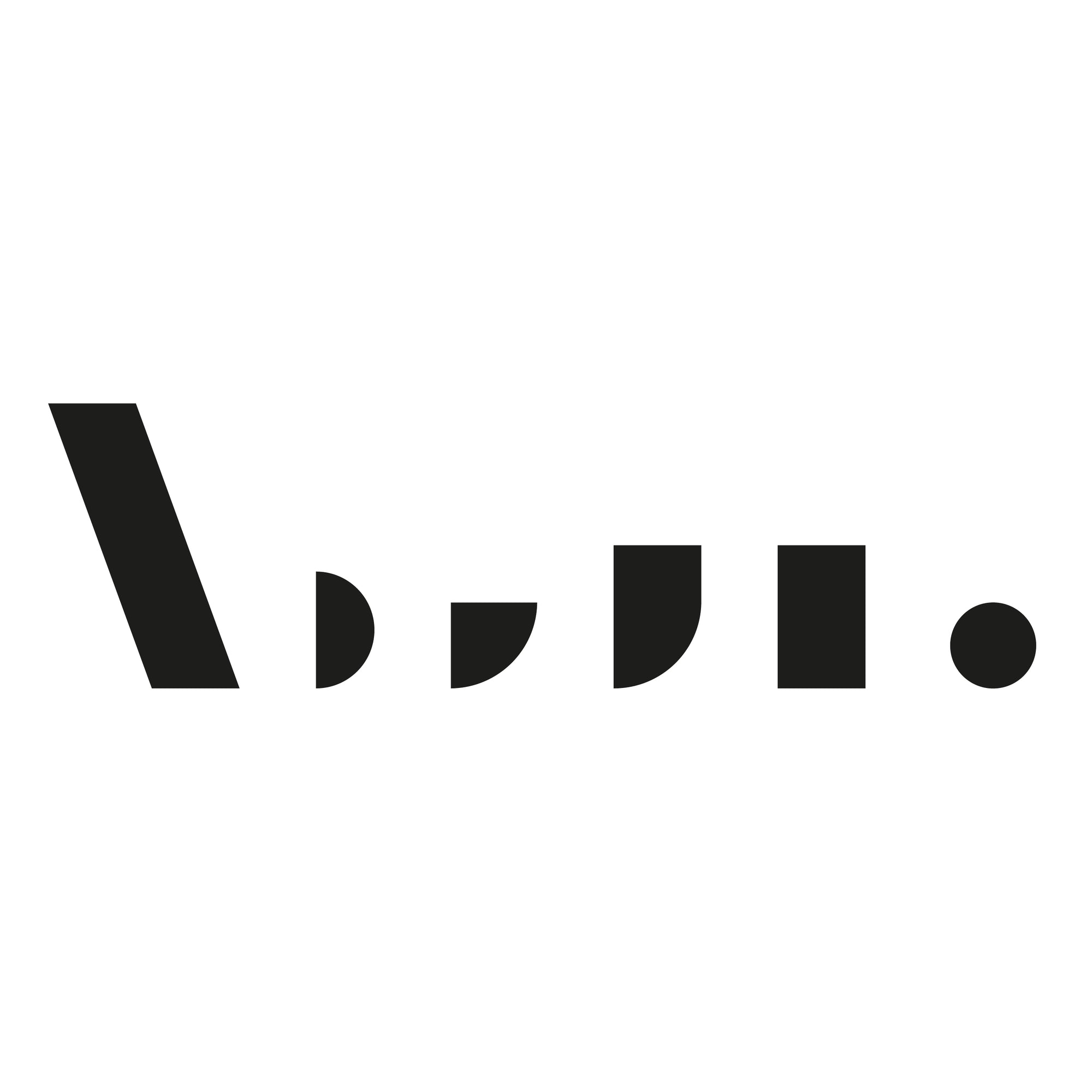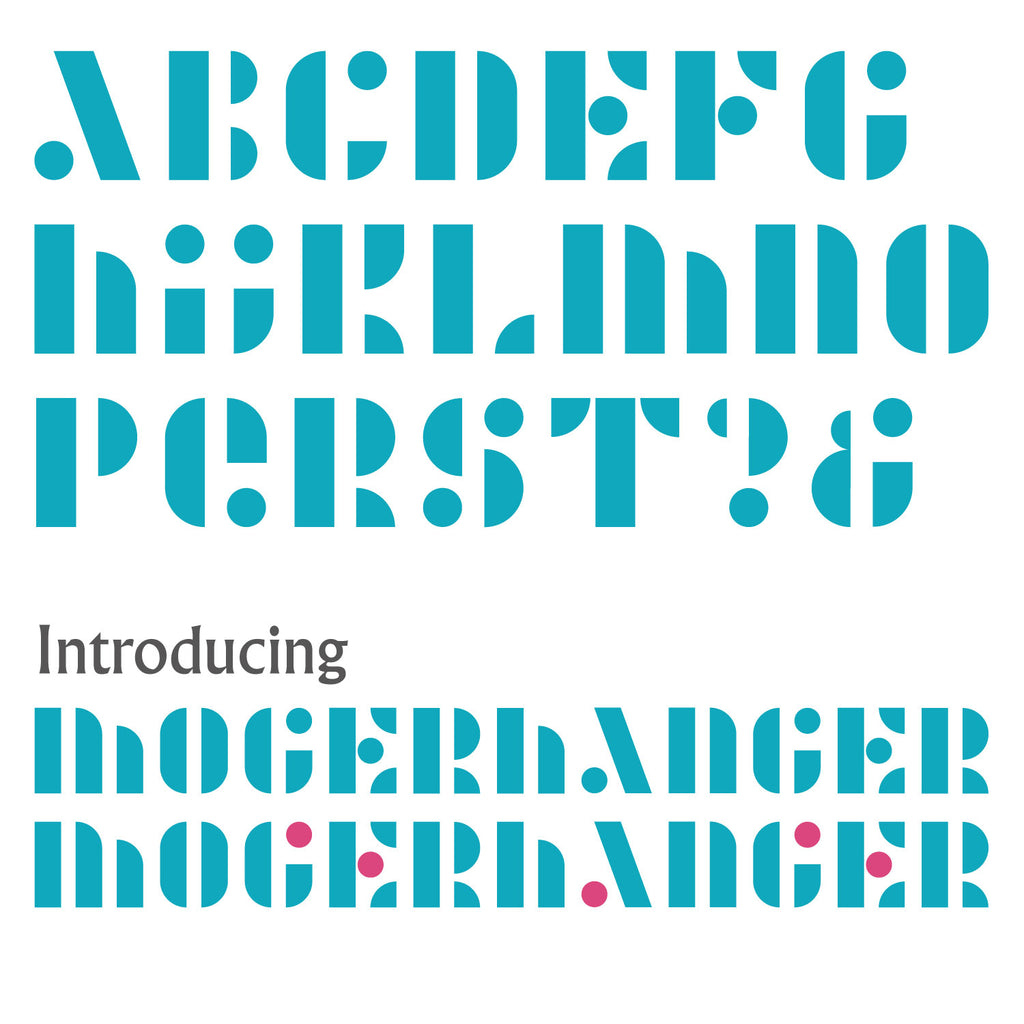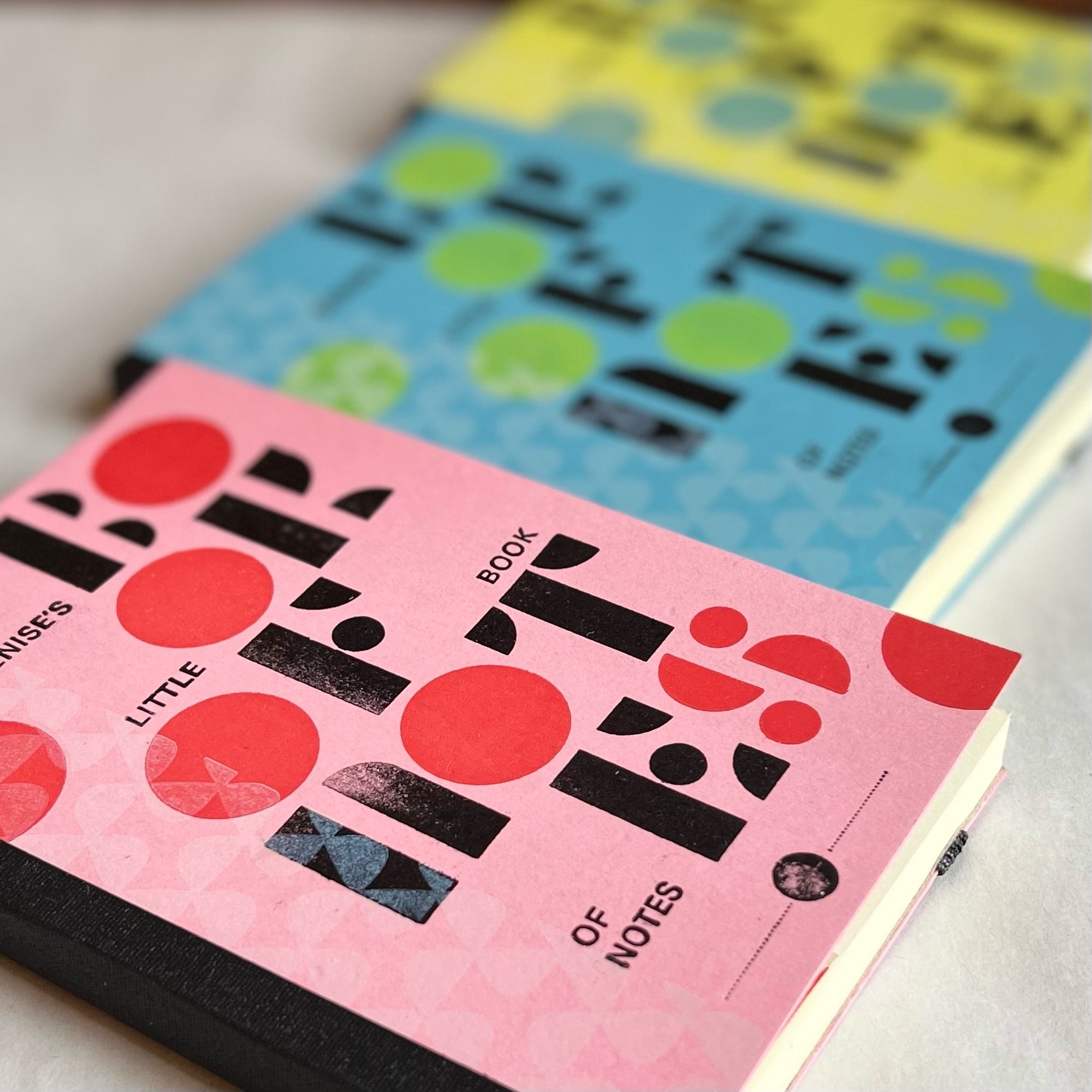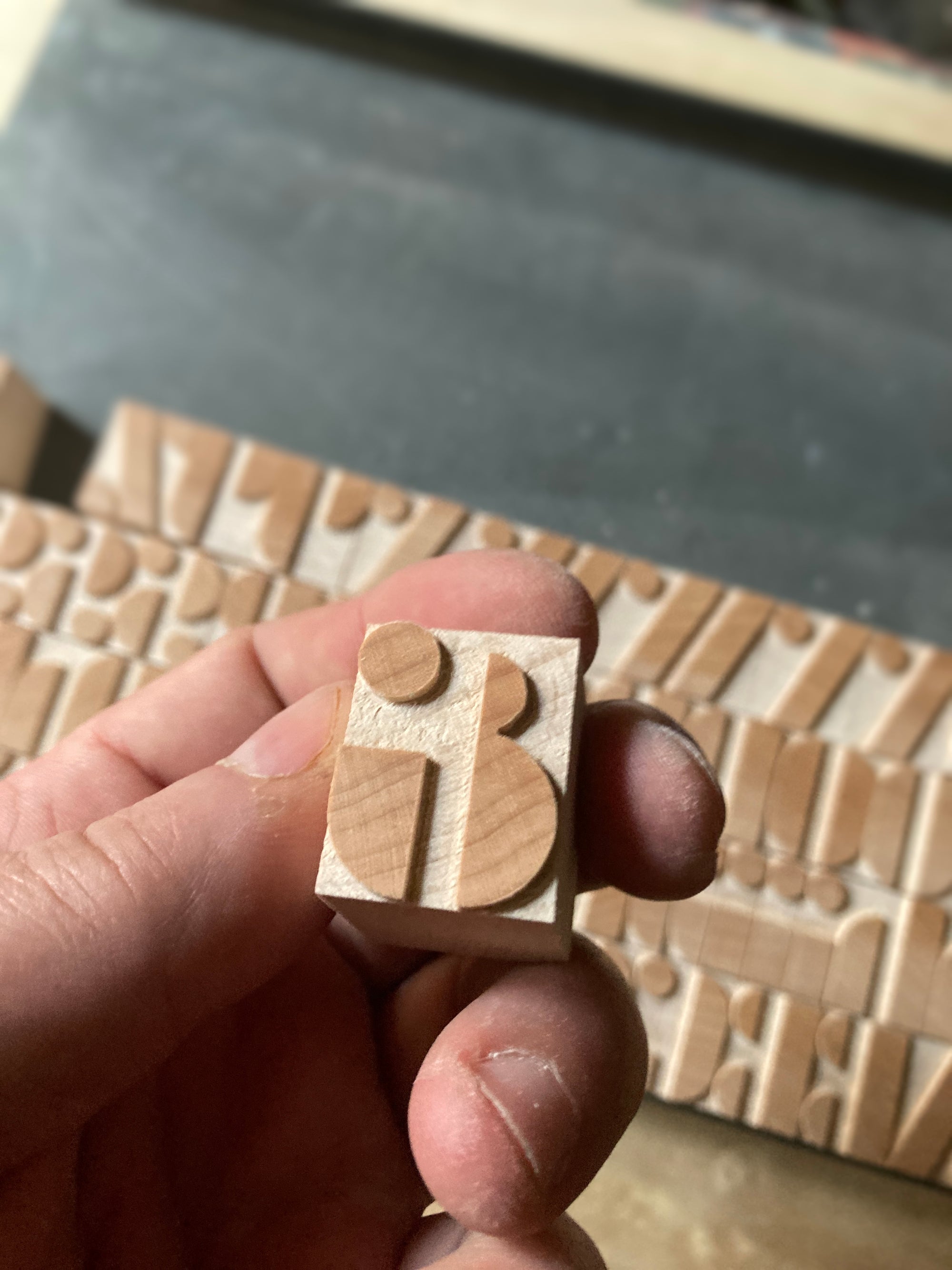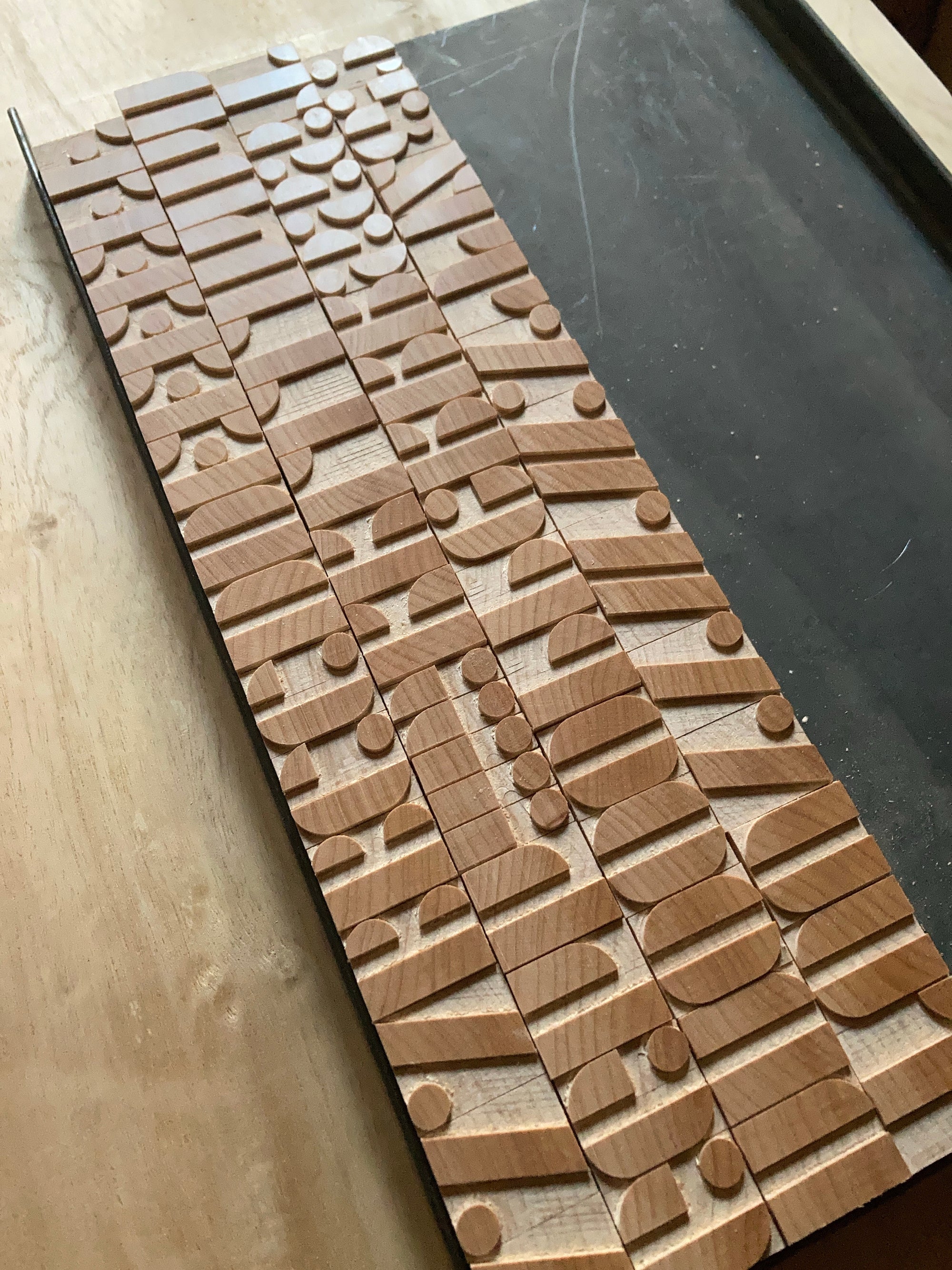
'Mogerhanger' modular stencil letterpress woodtype typeface
Introducing 'Mogerhanger' - a modular stencil typeface designed by Mark McKellier which uses just 6 elements to make up the letters.
6 line (25.4mm) versions cut from end grain English hardwood and 8 line (33.8mm) and 10 line (42.3mm) versions cut from end grain English Sycamore hardwood using a combination of modern CNC technology and traditional hand woodworking tools (including an original printers saw), made to English type-high (0.918in or 23.3mm) within plus or minus 0.1mm tolerance, sealed with shellac and hand finished with a traditional polished printing surface.
Notebooks designed and printed by Tania Hurt-Newton.